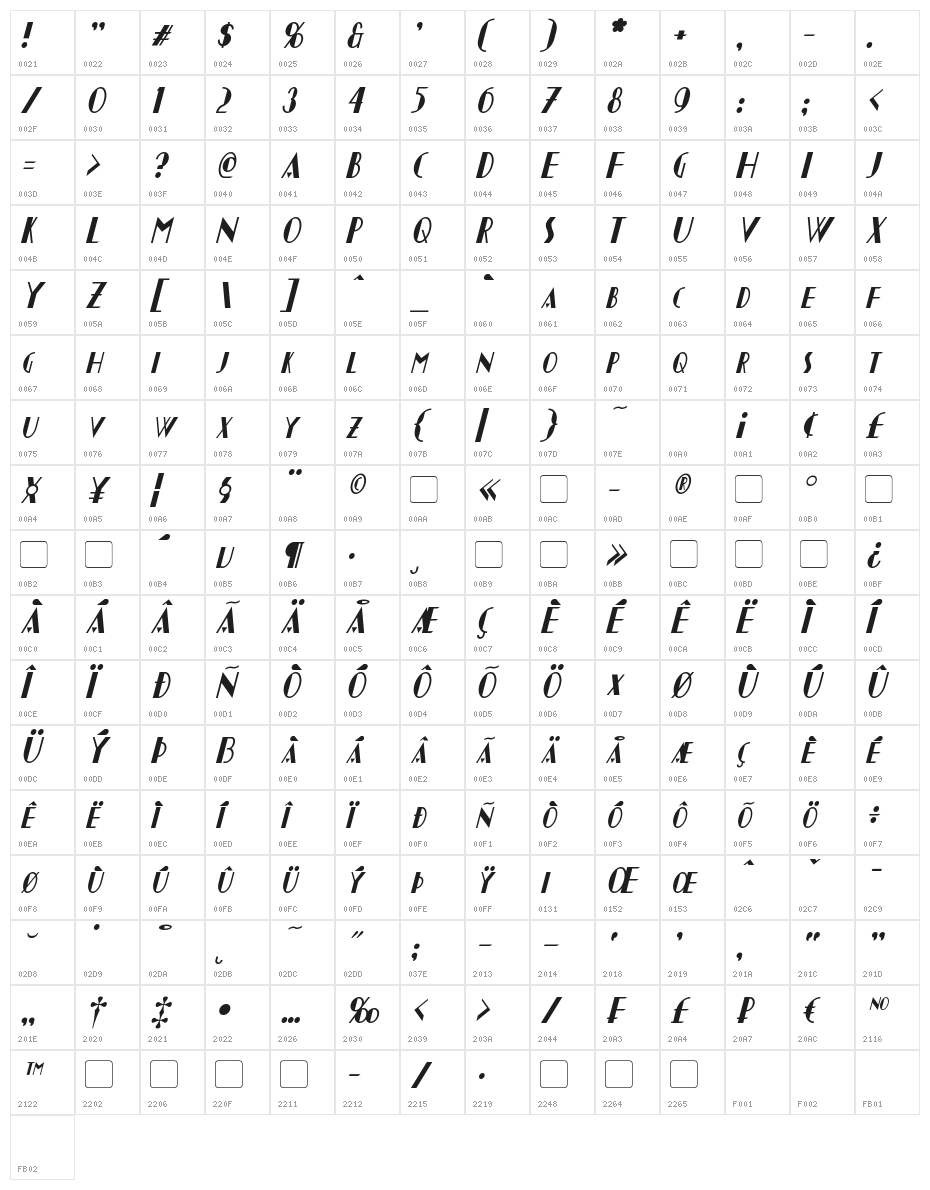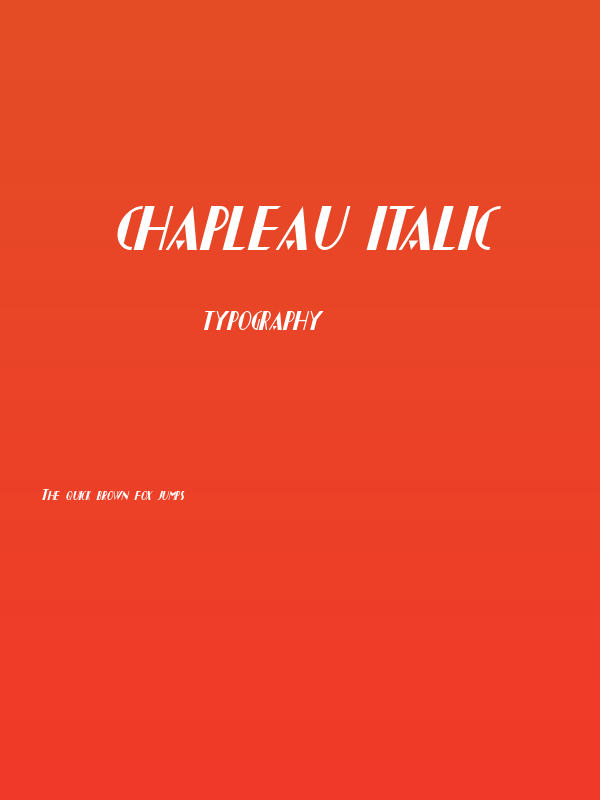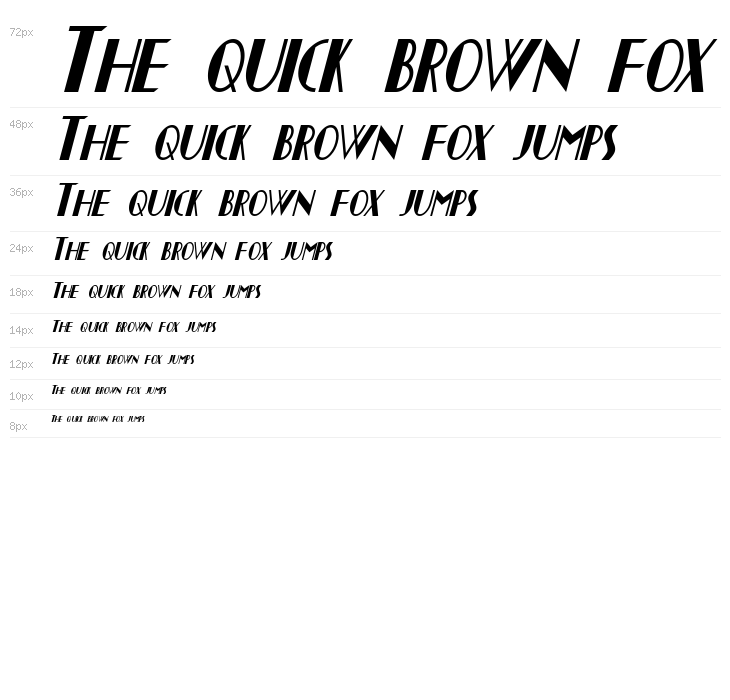
Chapleau Italic Font
Chapleau Italic Description
This font features a dynamic and angular design, characterized by its sharp, slanted strokes and high contrast between thick and thin lines. The uppercase letters exhibit a strong, forward-leaning posture, giving a sense of movement and urgency. The lowercase letters maintain this slant, with a consistent style that complements the uppercase set. Numerals are equally stylized, with a distinct flair that makes them stand out. The special characters are designed to match the overall aesthetic, ensuring a cohesive look across all glyphs. This font's unique style makes it suitable for projects that require a bold and modern appearance.